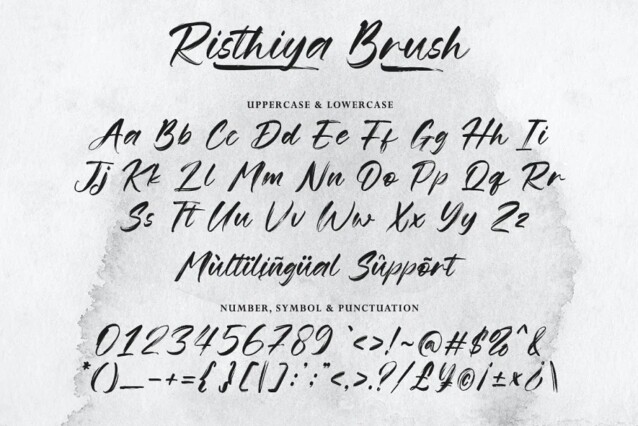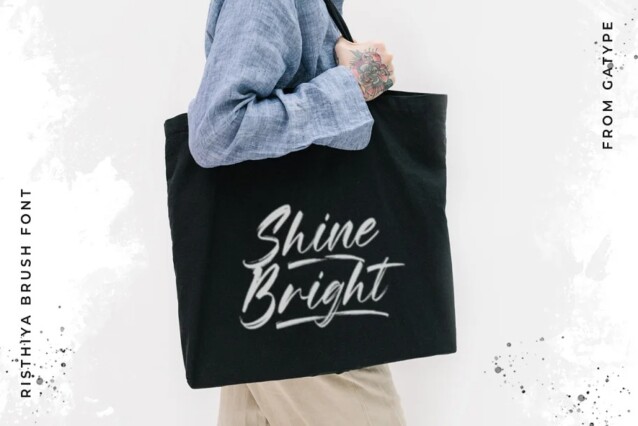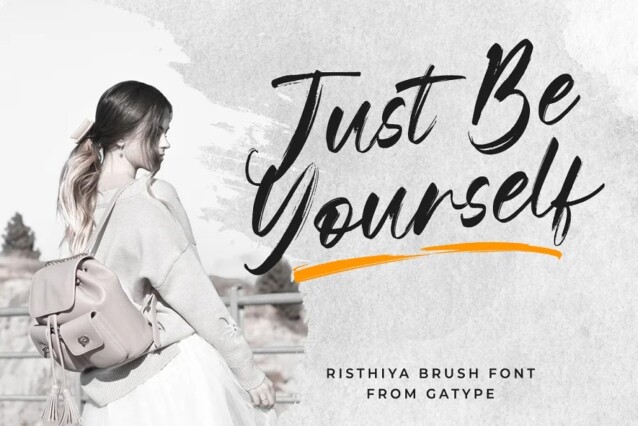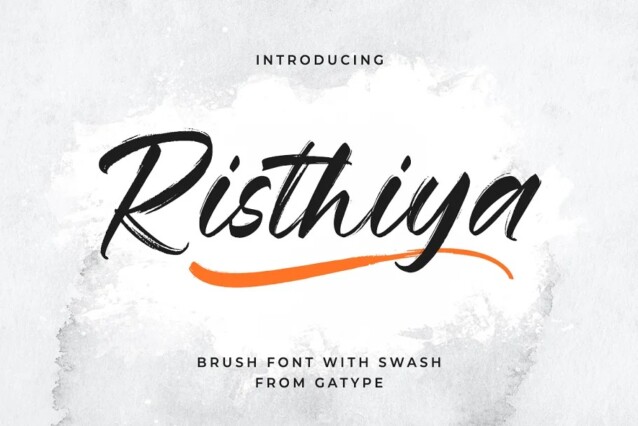
Risthiya Font is rough script typeface made with a brush pen. Suitable for use in title design. Such as apparel, invitations, books tittle, stationery design, quotes, branding, logos, greeting card, t-shirt, packaging design, poster and more. Risthiya Brush includes a complete set of uppercase and lowercase letters, as well as multi-language support, numbers, punctuation, ligatures.